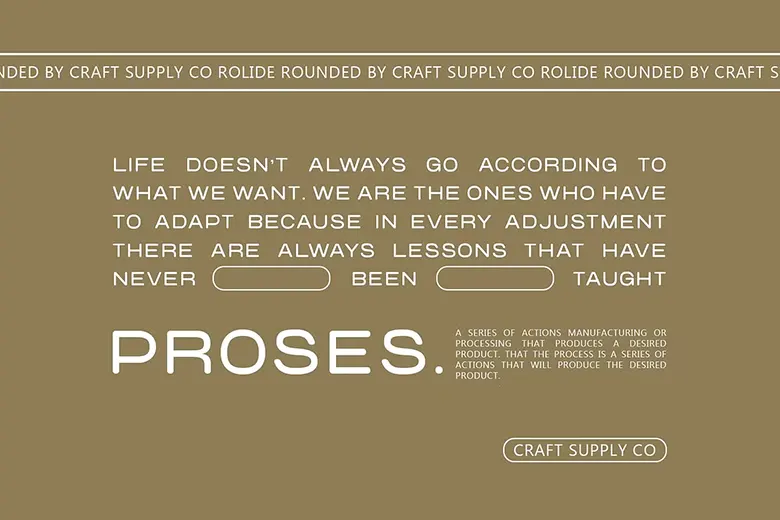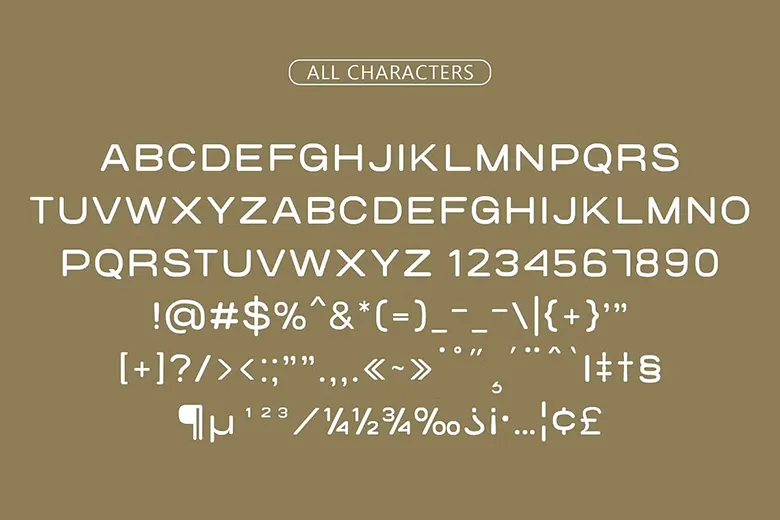
Rolide Rounded is a clean, low-contrast sans serif font perfect for many design projects. Its modern, sleek look gives a fresh feel, while the rounded edges make it warm and easy to read. This font works well in both digital and print designs.
Whether you’re creating websites, social media posts, business cards, or product packaging, it adapts easily to all platforms. Its balanced design keeps your brand consistent and unified. Rolide Rounded offers a simple, stylish solution that fits a variety of design needs with ease and elegance.
Rolide Rounded Sans Serif Font